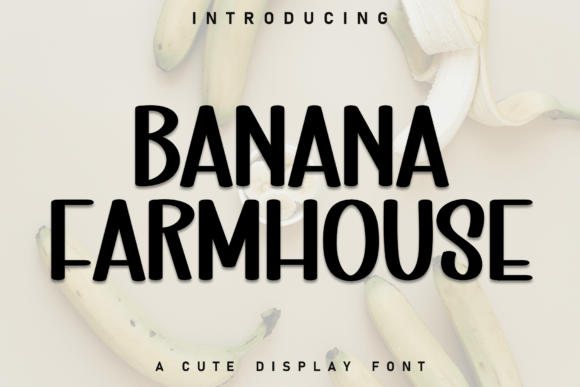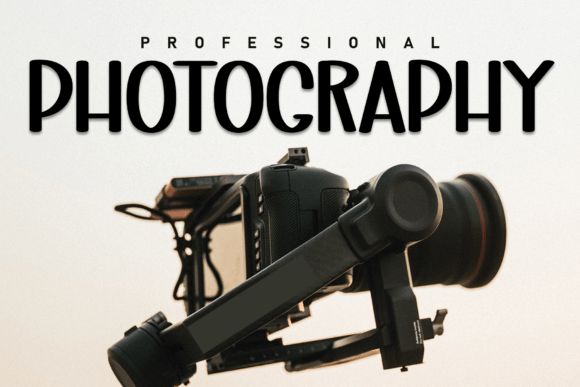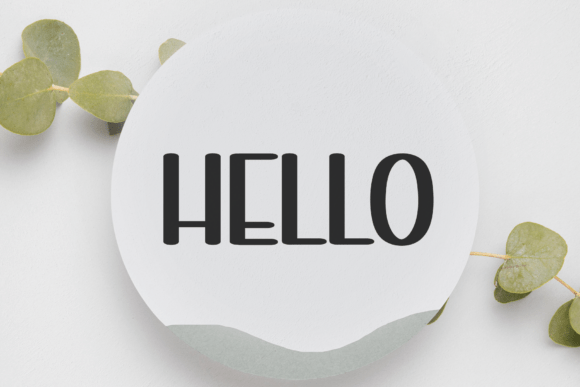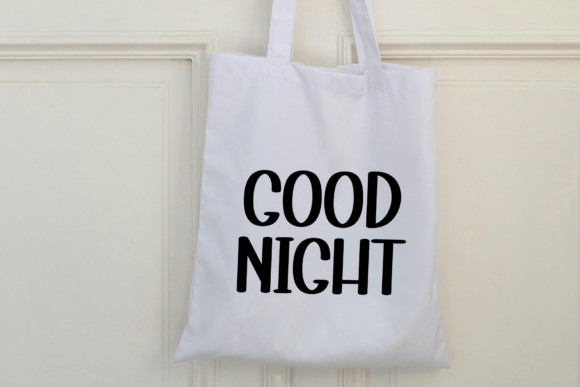
Banana Farmhouse Font: A Cute Display Font for DIY & Cricut Projects
About the Banana Farmhouse Font
Experience the unique personality of Banana Farmhouse Font, a font designed for impact. Banana Farmhouse is a handwritten font that looks like it was drawn with a marker. Having a relaxed and sporty feel, it is very suitable for branding, logos, wedding supplies, greeting cards, fashion, lookbooks, marketing promotions, and whenever you want your design to look luxurious and elegant but still casual.
Banana Farmhouse Font Usage Examples
Banana Farmhouse Font Example